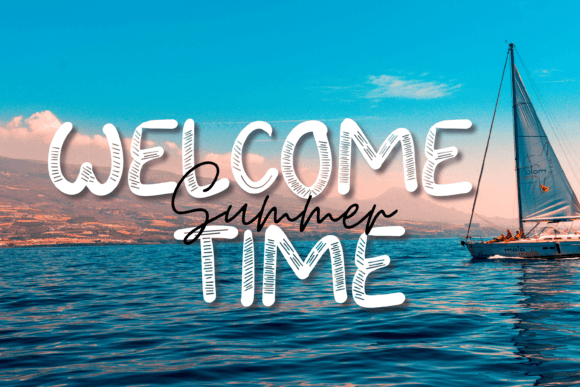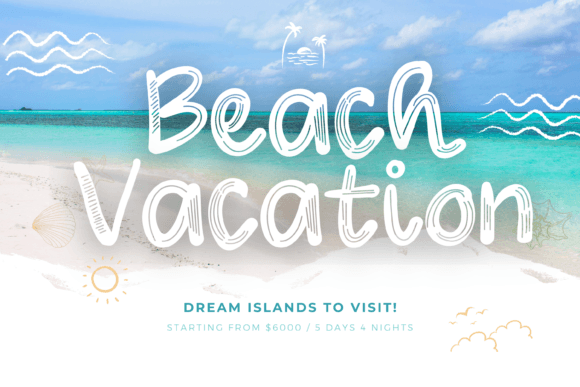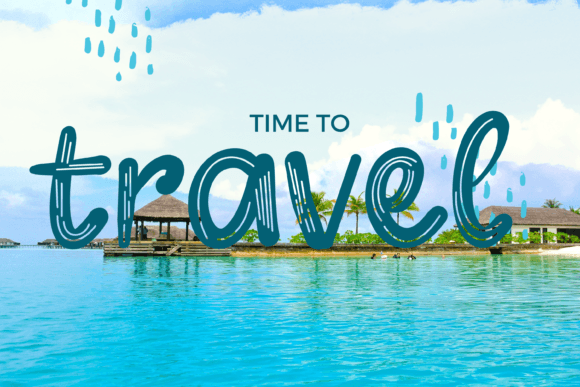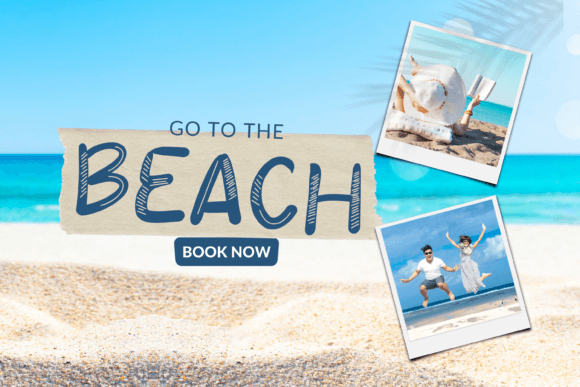
Introducing Dayton Font: The Ultimate Retro-Inspired Typeface for Creative Designs
Are you on the hunt for a font that exudes joy, fun, and a strong retro vibe? Look no further than the Dayton Font! This delightful typeface is perfect for designers and crafters seeking to add a whimsical touch to their creations. With its unique blend of playfulness and sophistication, Dayton Font is an excellent choice for a wide range of design projects.
What Makes Dayton Font So Special?
Dayton Font boasts a distinctive, retro aesthetic that’s sure to turn heads. Its joyful and funky design makes it an ideal choice for projects that require a dash of personality and flair. Whether you’re working on a logo, packaging, product design, book cover, poster, or any other creative endeavor, Dayton Font is sure to bring a smile to your audience’s faces.
Key Features of Dayton Font
- Retro Aesthetic: Dayton Font’s design is deeply rooted in the retro style, evoking memories of the past while still feeling fresh and modern.
- Whimsical Accent: This font is perfect for adding a touch of whimsy to your designs, making it ideal for projects that require a bit of playfulness.
- Versatility: Dayton Font can be used for a wide range of design projects, from logos and packaging to book covers and posters.
- Easy to Read: Despite its playful design, Dayton Font remains easy to read, making it a great choice for body text and headlines.
Dayton Font is a versatile typeface that’s suitable for various creative applications. Designers will love using it for:
- Logo Design: Create eye-catching logos that stand out from the crowd with Dayton Font’s unique design.
- Branding: Use Dayton Font to develop a consistent visual identity for your brand, adding a touch of personality to your marketing materials.
- Packaging: Add a pop of color and whimsy to your product packaging with Dayton Font.
Crafters will also appreciate Dayton Font for:
- Handmade Products: Add a personal touch to your handmade products, such as crafts, jewelry, or artwork, with Dayton Font.
- Paper Crafting: Use Dayton Font to create beautiful paper crafts, like cards, invitations, or scrapbook pages.
Tips for Using Dayton Font Effectively
To get the most out of Dayton Font, consider the following tips:
- Mix and Match: Combine Dayton Font with other fonts to create a unique visual hierarchy.
- Experiment with Colors: Play with different colors to bring out the retro vibe of Dayton Font.
- Don’t Overdo It: Use Dayton Font judiciously, as too much of a good thing can be overwhelming.
Dayton Font is a joyful, funky typeface that’s sure to add a touch of whimsy to your designs. With its strong retro aesthetic and versatility, it’s perfect for designers and crafters looking to create eye-catching projects. Whether you’re working on a logo, packaging, or book cover, Dayton Font is an excellent choice. So why wait? Give Dayton Font a try today and bring a dash of fun and personality to your creations!